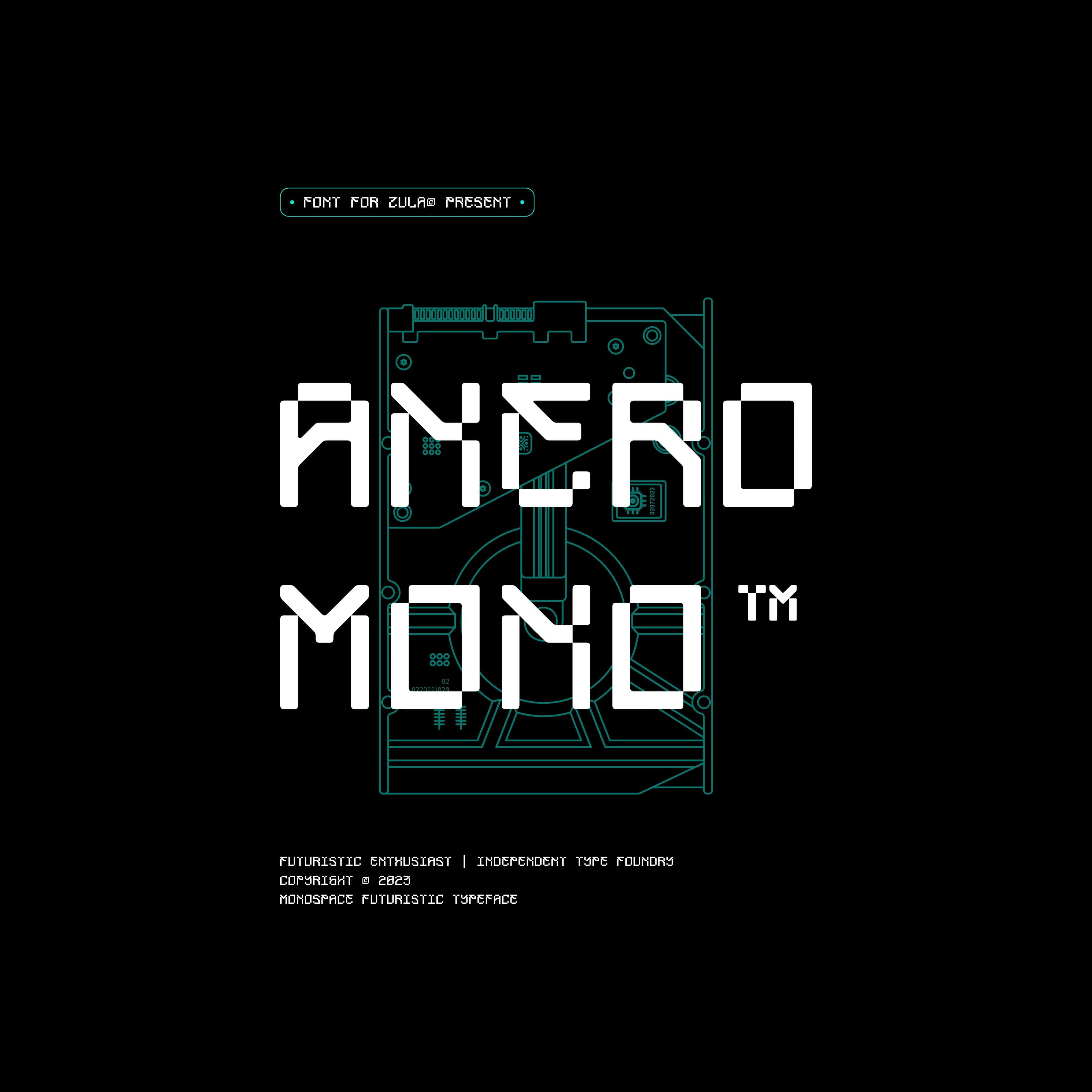
<p>Anero Mono is a font developed from the "ANERO" font with a monospace concept.</p> <p>- OTF/ TTF/ WOFF<br>- 26 Uppercase<br>- 26 Lowercase<br>- 3 Uppercase Alternates<br>- 6 Lowercase Alternates<br>- Punctuation</p>